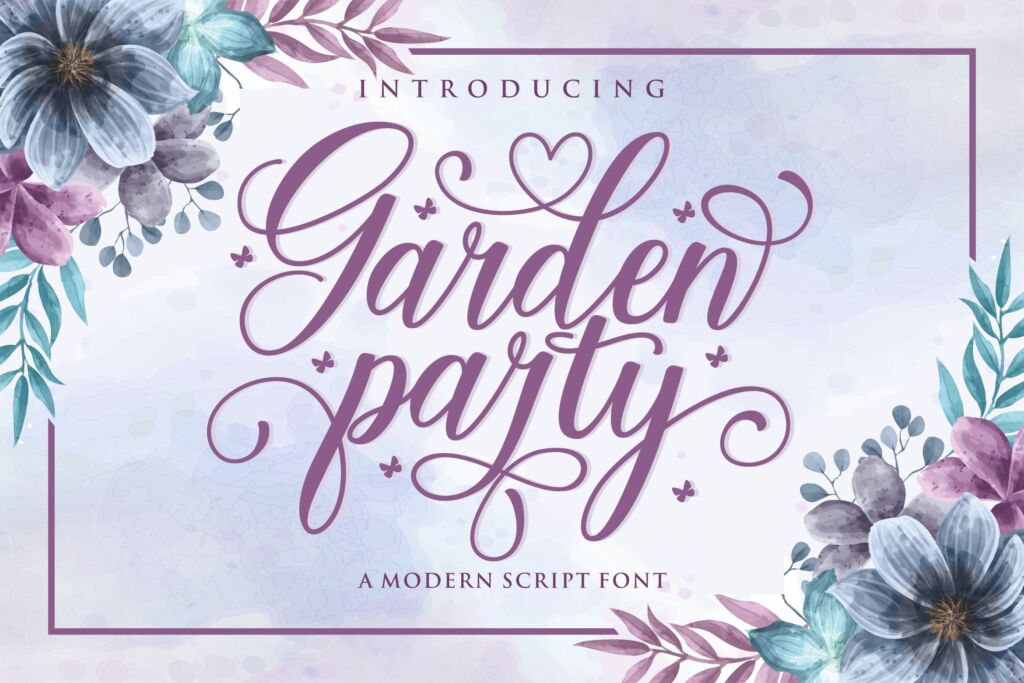
Garden Party Font
About the Garden Party Font
Drawn and created in 2022, Garden Part is a fun hand-lettering that has a distinct style and a strong personality.
The font is built with advanced OpenType functionality and has guaranteed top-notch quality, containing stylistic and contextual alternates, ligatures, and more features; all to give you complete control and customizability.
It has extensive lingual support, covering all Latin-based languages, from Northern Europe to South Africa, and from America to South-East Asia.
It contains all the characters and symbols you’ll need, including all punctuation and numbers.